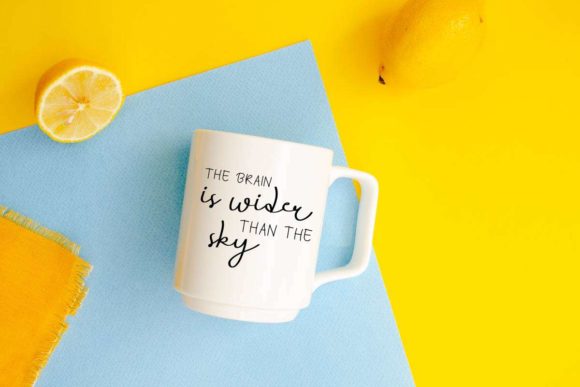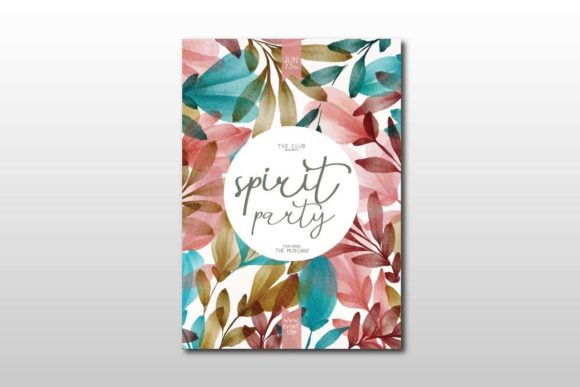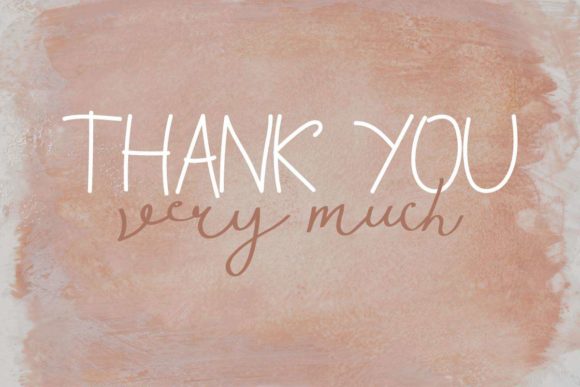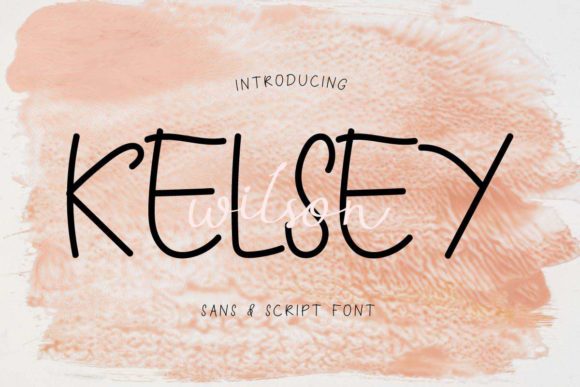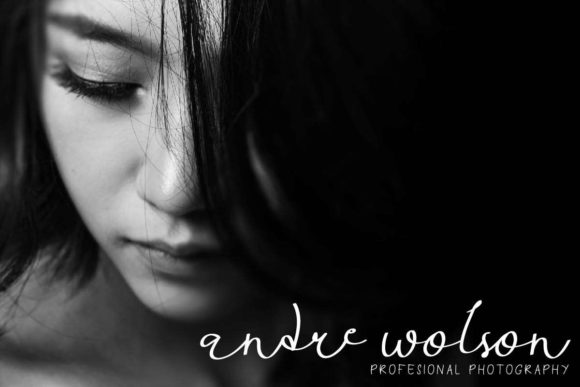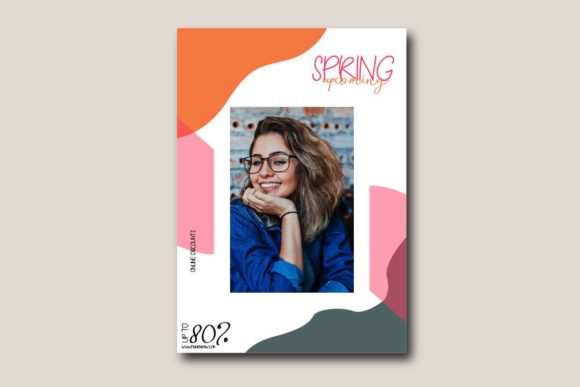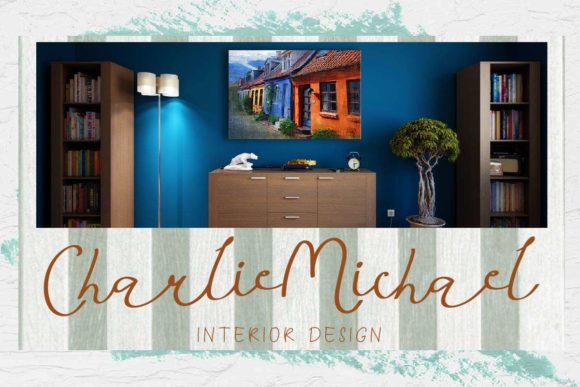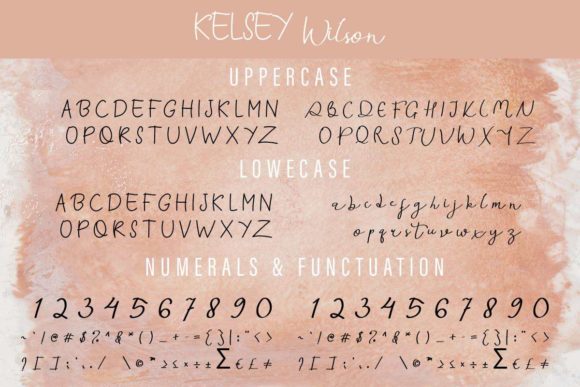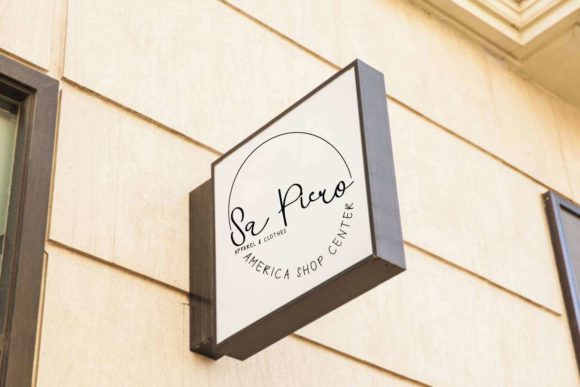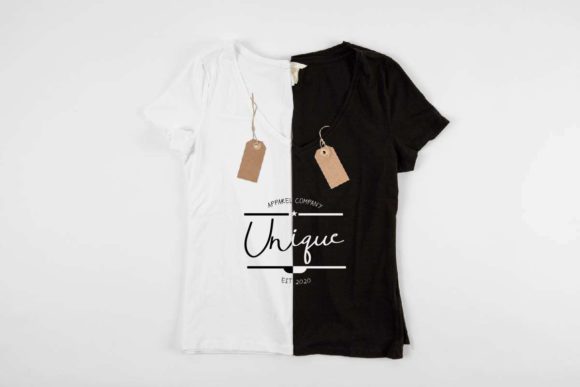
Kelsey Wilson Font
Kelsey Wilson duo is a match made in heaven, the cuteness of the script font perfectly complements the sans serif style. Combining these two fonts on your next design will give a balanced and friendly feel.